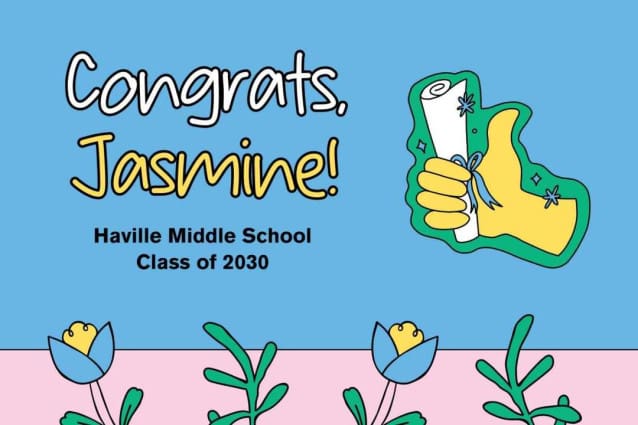
Stick Holder Font
Stick Holder Font is a classic and simple handwritten script, created in a random and free style. It is suitable for logotype, headline font, in corporate identity, brand identity, apparel industry, poster, music, movie, game, magazine, book, comic, cartoon, YouTube, Instagram, website, or any of your creative design projects.